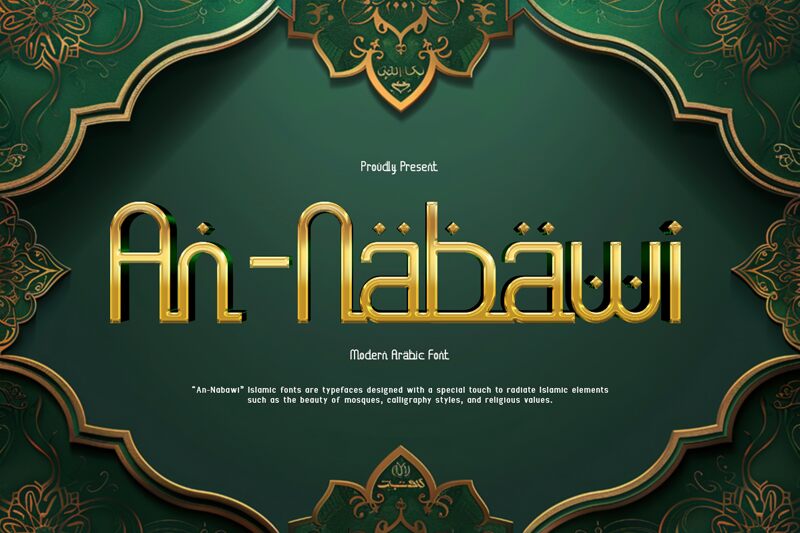
An-Nabawi font by Kong Font is a free foreign faux Arabic typeface that gives Latin letters a smooth Middle Eastern flair. Rounded strokes, tall verticals, and diamond-like dots create a fluid, calligraphic rhythm while staying clean and legible. The shapes feel both ornamental and orderly, so you get that atmospheric, souk-inspired mood without sacrificing clarity at smaller sizes.
Using An-Nabawi font, you can instantly theme menus, spice labels, event posters, travel brochures, game titles, and cultural festival branding with a cohesive “Arabesque” voice. This free font works beautifully in bold headlines, with a neutral sans serif for body text to keep layouts grounded. Try generous letterspacing and larger point sizes so its curved forms and decorative dots have room to breathe.